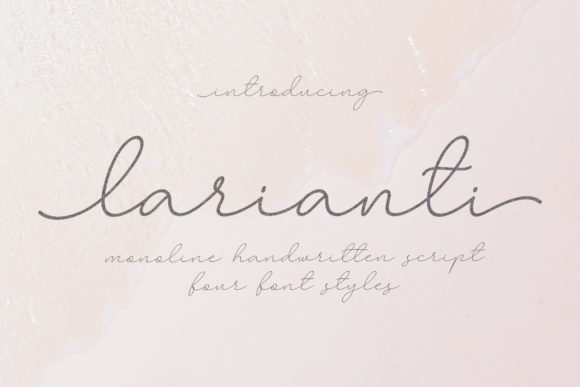
Introducing Larianti Monoline Font, the epitome of elegance and romance! This captivating script font, created by the talented Subectype, is here to infuse your projects with a touch of whimsical charm. Whether you're a professional designer or a DIY enthusiast, Larianti Monoline is the perfect choice to elevate your creations to new heights of beauty.
Imagine a world where every stroke of your brush or pen exudes love and tenderness. Larianti Monoline brings that dream to life, with its graceful curves and delicate lines. Watch as your words dance across the page, forming a symphony of elegance that captivates anyone who lays eyes on it.
With Larianti Monoline, expressing your emotions becomes effortless. Its versatility allows you to create stunning wedding invitations, heartfelt love letters, or even personalized gifts for your loved ones. Let your creativity run wild as you explore the endless possibilities this font has to offer.
But Larianti Monoline is not just a pretty face; it's a powerhouse of functionality as well. Its extensive character set ensures that you can use it in multiple languages, making it a truly global font. Say goodbye to language barriers and connect with people from all corners of the world through the beauty of typography.
Crafters and artists alike will appreciate the ease of use that Larianti Monoline offers. Its smooth lines and flawless consistency make it a breeze to work with, whether you're using it in digital designs or crafting it by hand. Let your imagination soar as you bring your visions to life with this remarkable font.